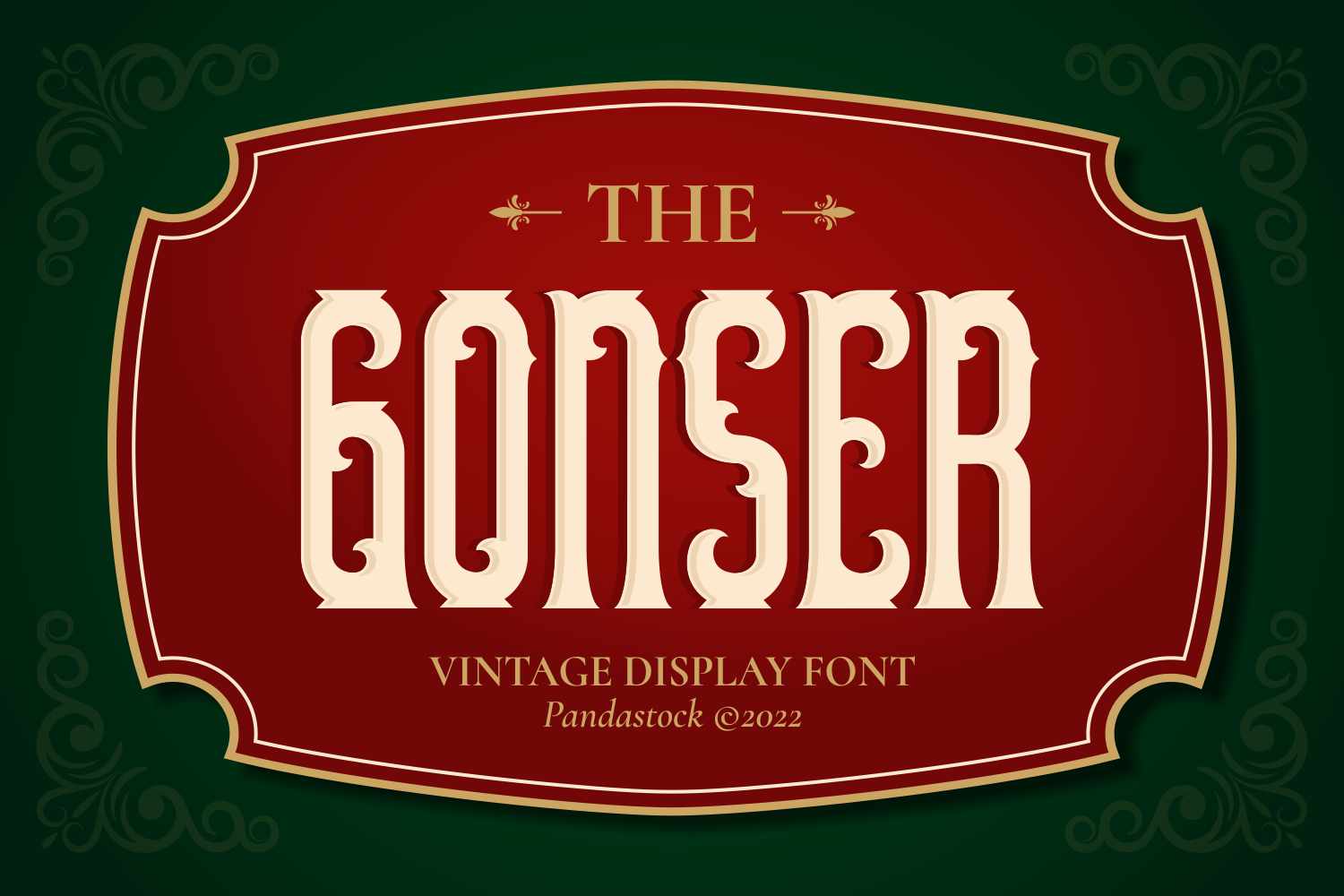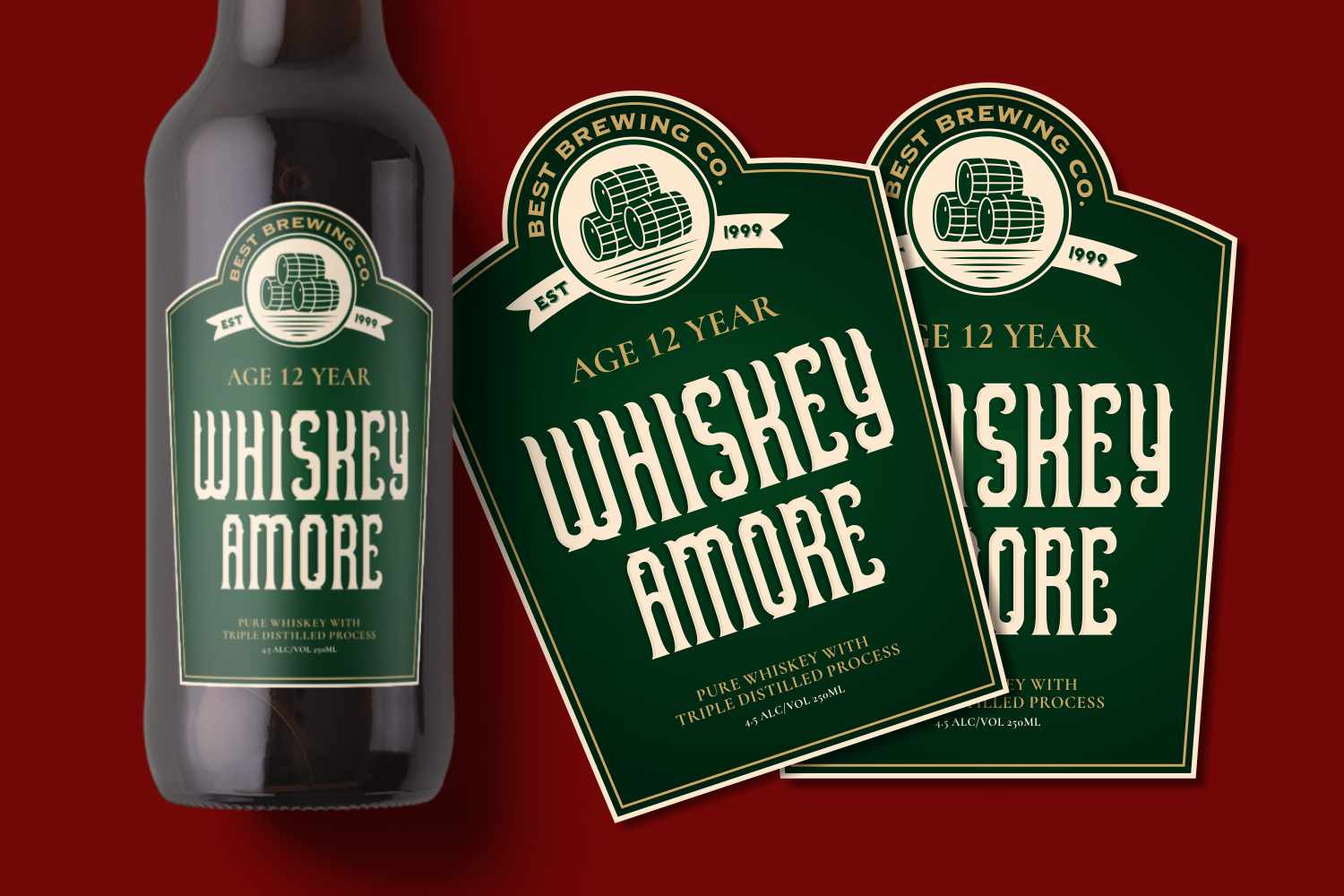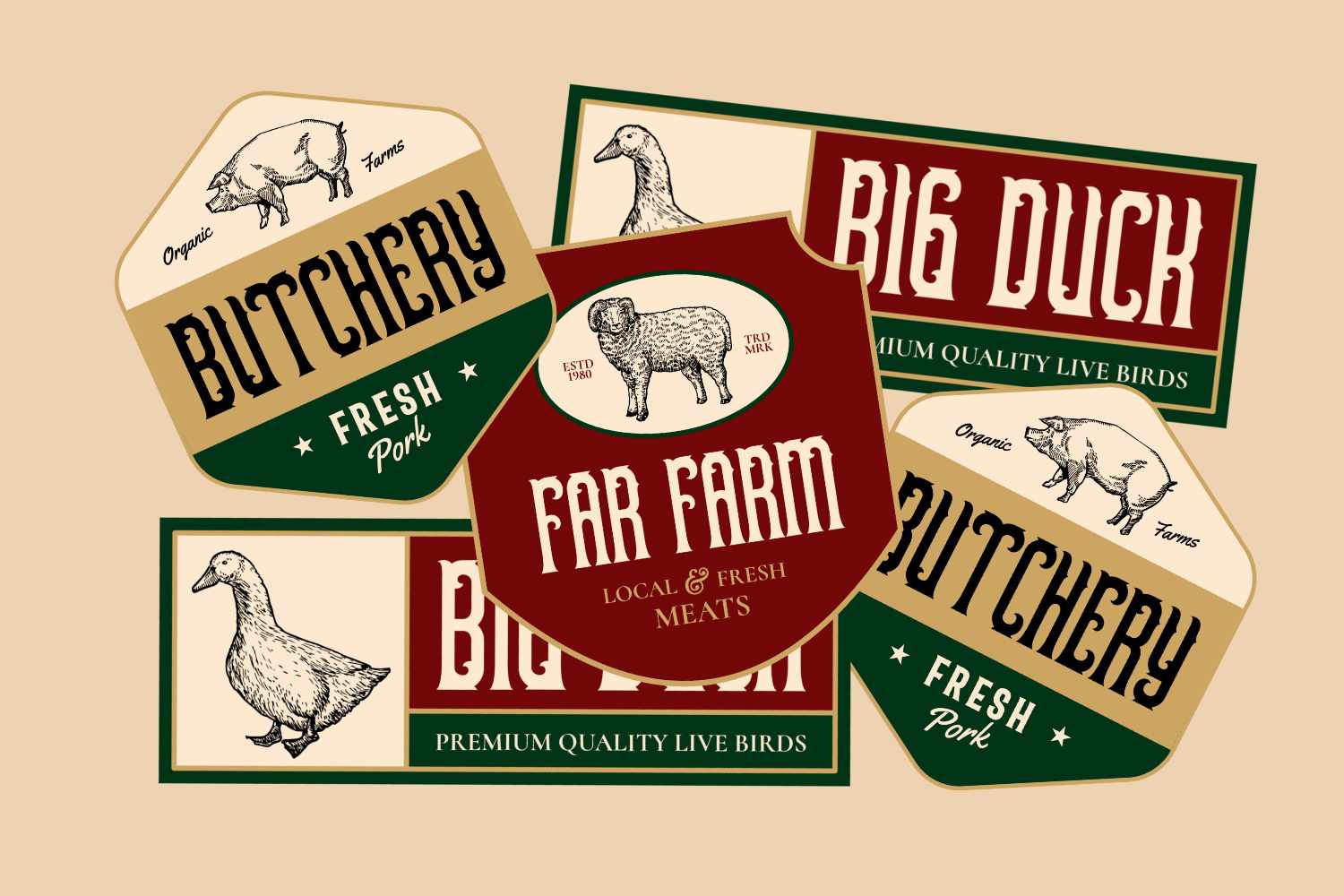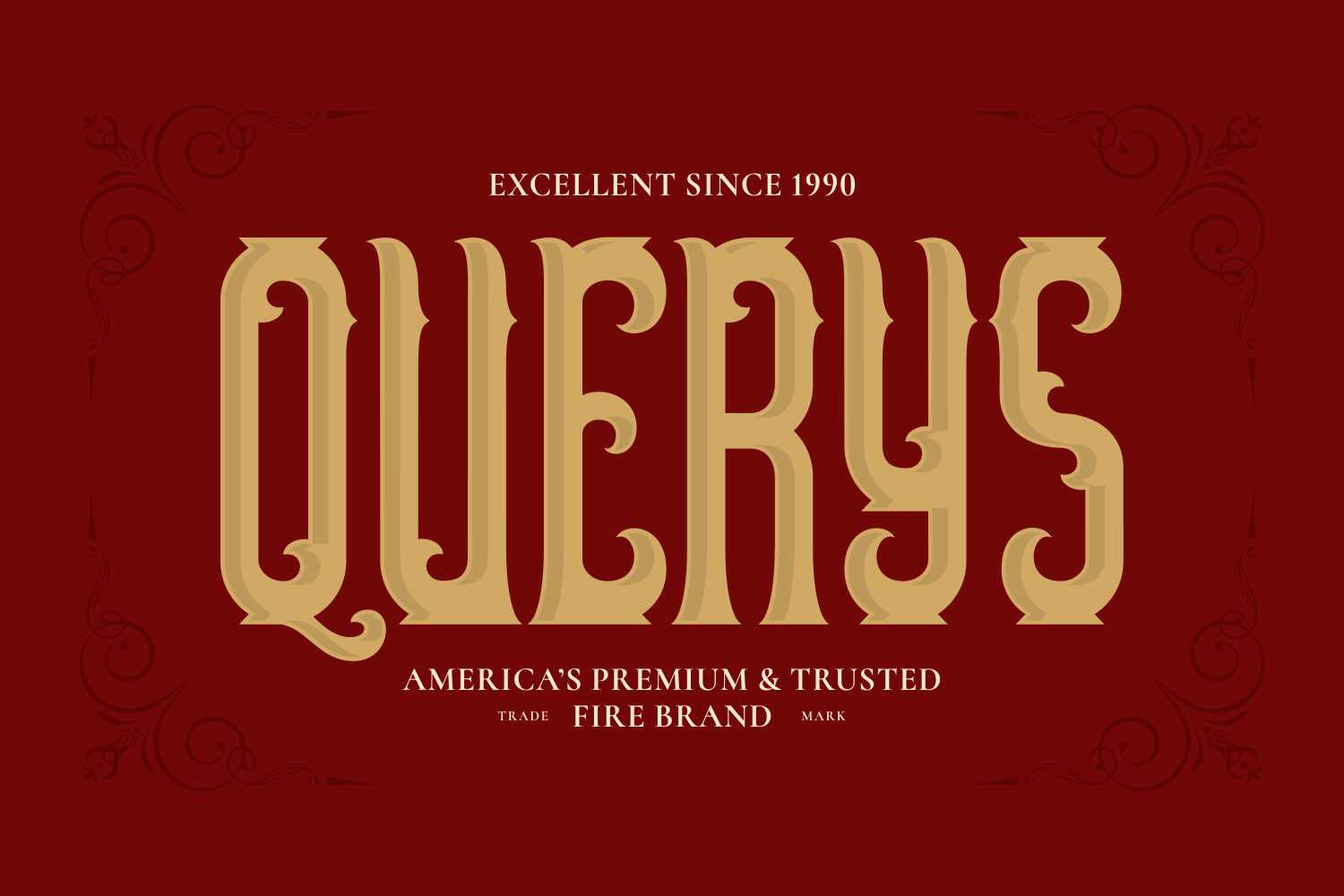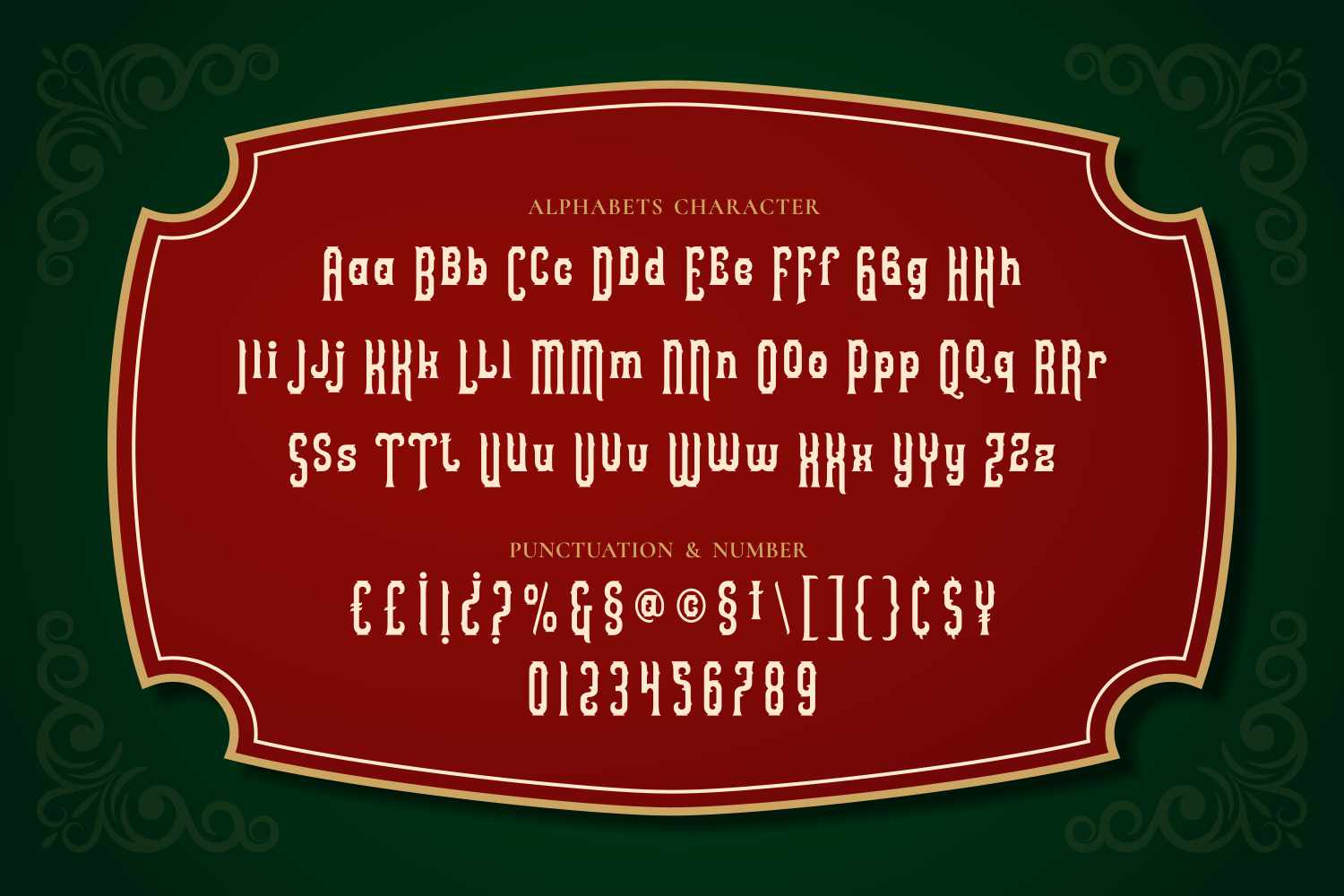
Gonser is a vintage display font that embodies boldness and tradition with its tall, ornamental letterforms. Inspired by classic signage, whiskey labels, and old-world branding, this typeface delivers a strong nostalgic atmosphere while maintaining clear readability. Its decorative strokes and unique curves make it a perfect choice for projects that want to showcase heritage, authenticity, and timeless style.
With a full set of uppercase, lowercase, numerals, and punctuation, Gonser offers versatility for various design needs. From brewery labels, restaurant menus, and packaging design to posters and logos, this font ensures a striking and memorable impact. Its vintage charm paired with modern usability makes it a standout option for creating premium and elegant retro-inspired visuals.
Gonser